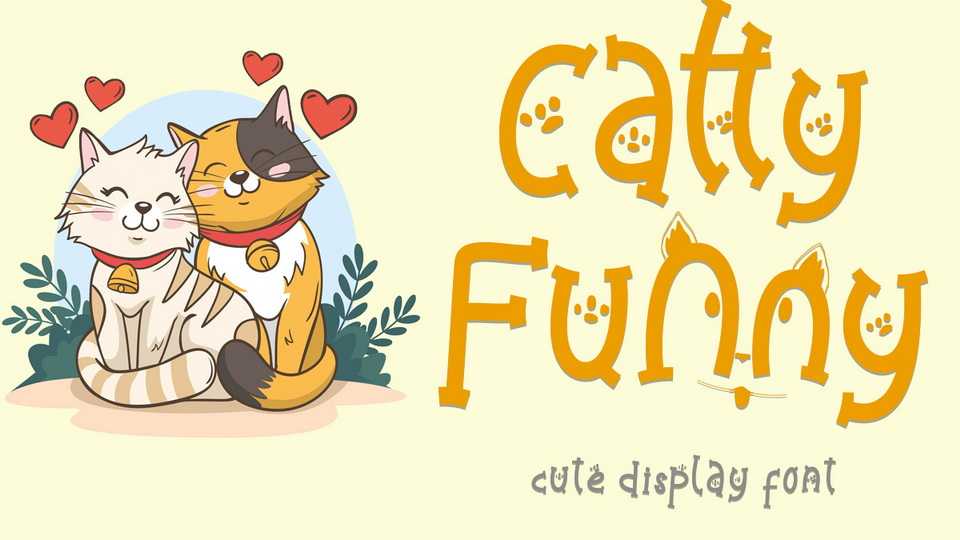
Download Catty Funny font, a cute and unique type of display typeface. Catty Funny is perfect for promoting pet food, for writing posters, mugs, t-shirt designs, comic covers, book covers, logos, branding, banners, and more.